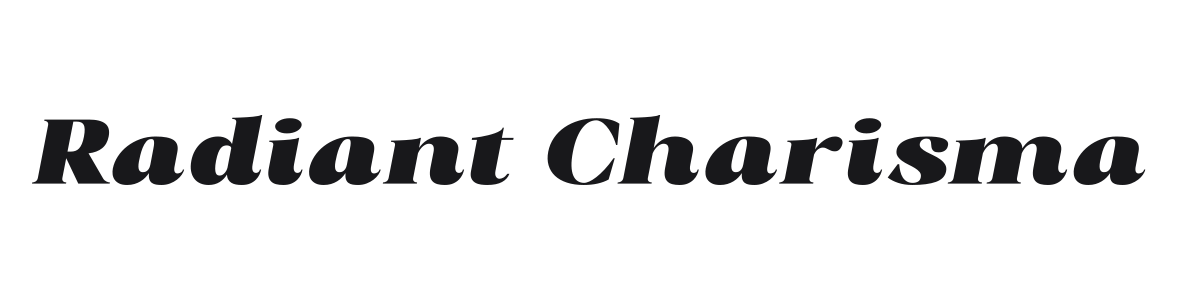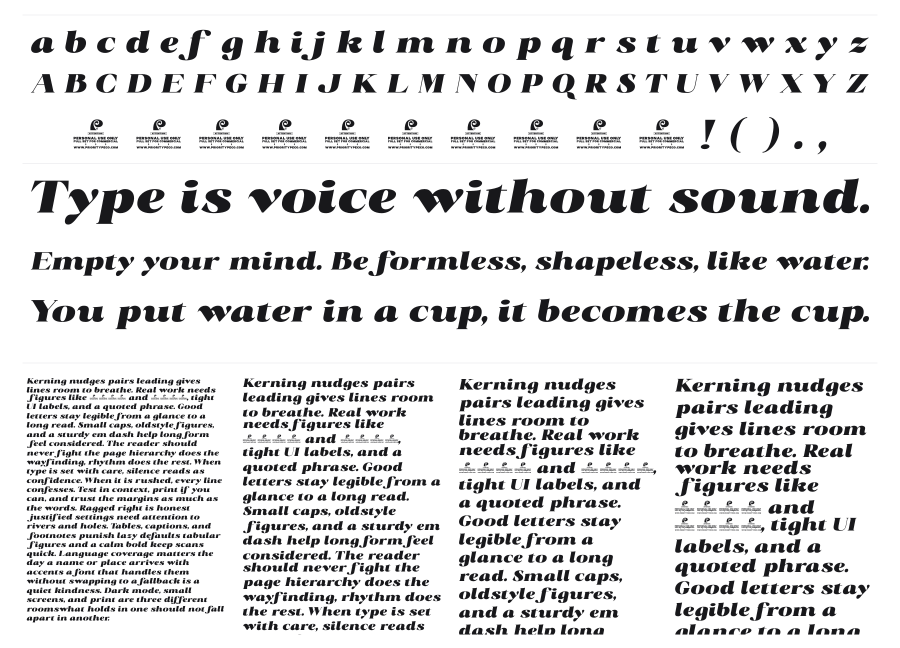
Radiant Charisma
Radiant Charisma is a heavy italic Didone serif with extreme stroke contrast and wide, sweeping proportions. The black weight amplifies the drama of hairline-to-stem transitions, giving it a bold editorial presence rooted in fashion and luxury publishing traditions. At large sizes it commands attention; it is strictly a display face.